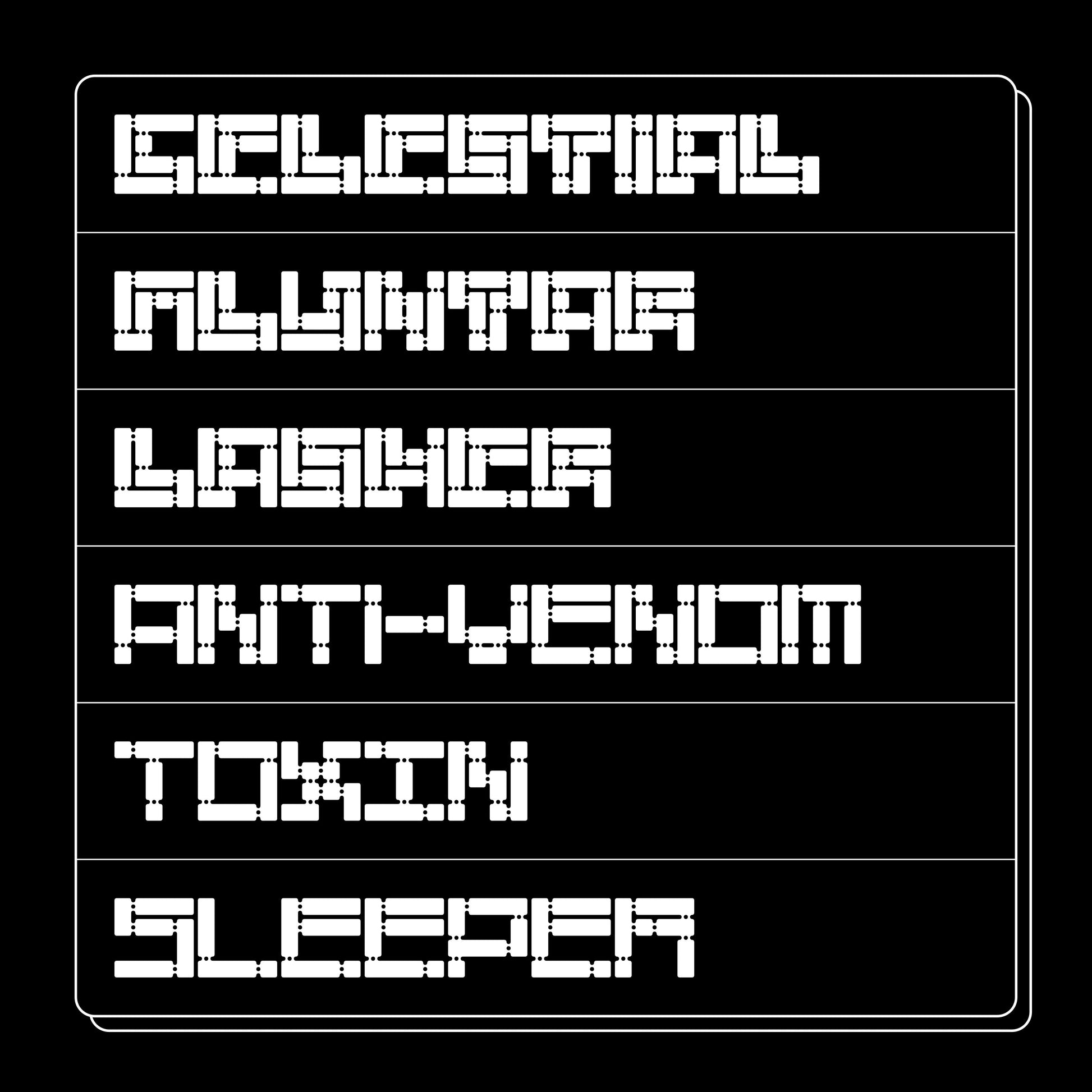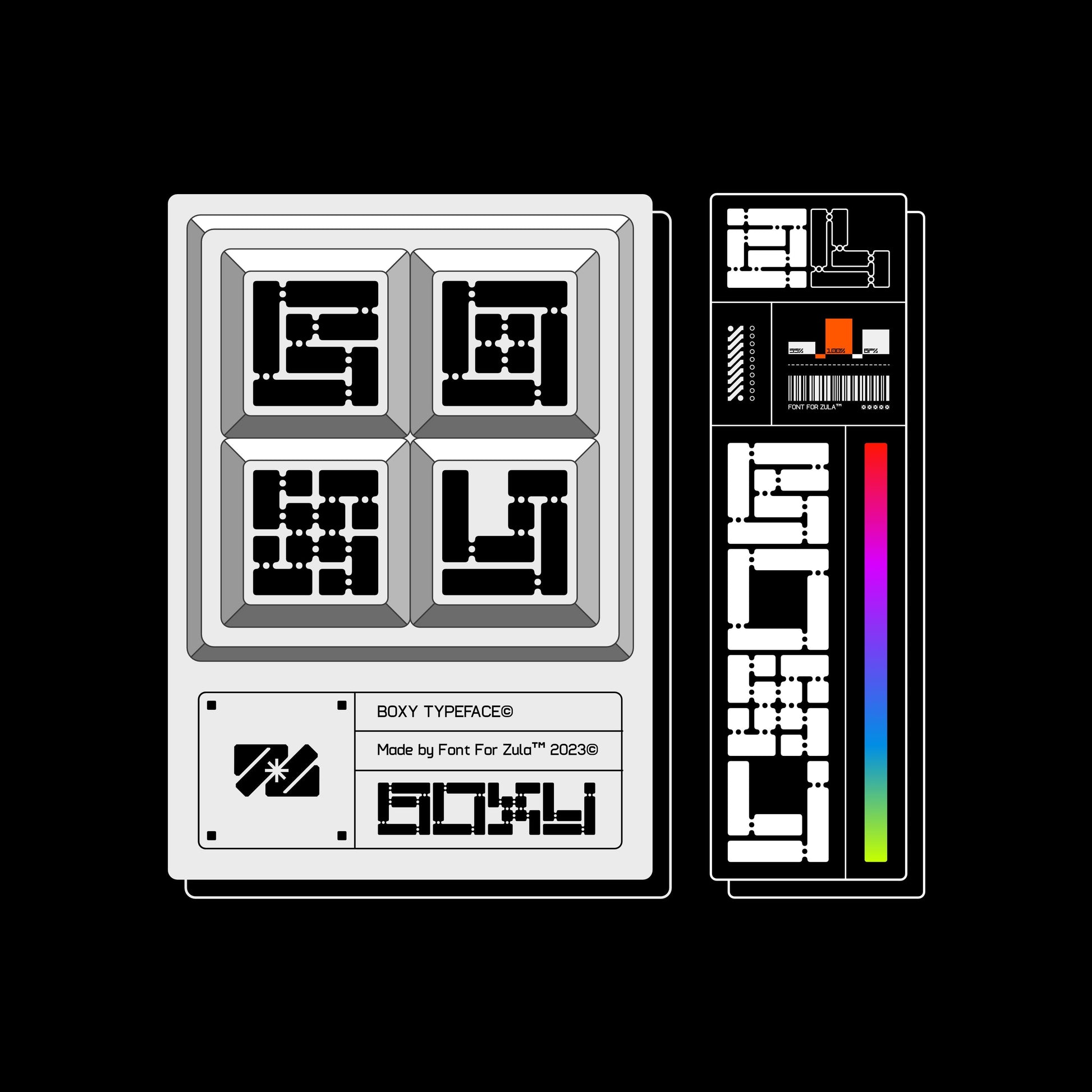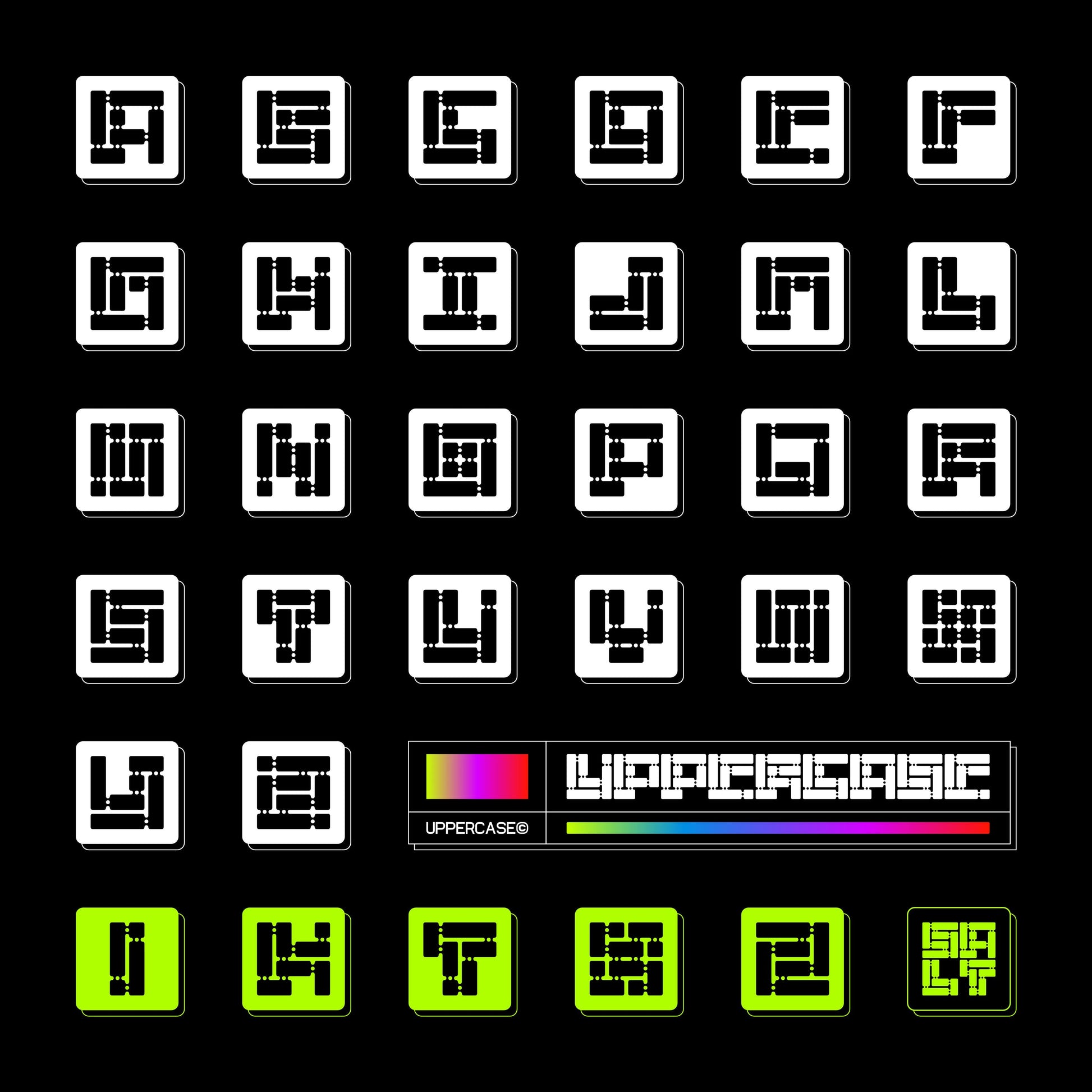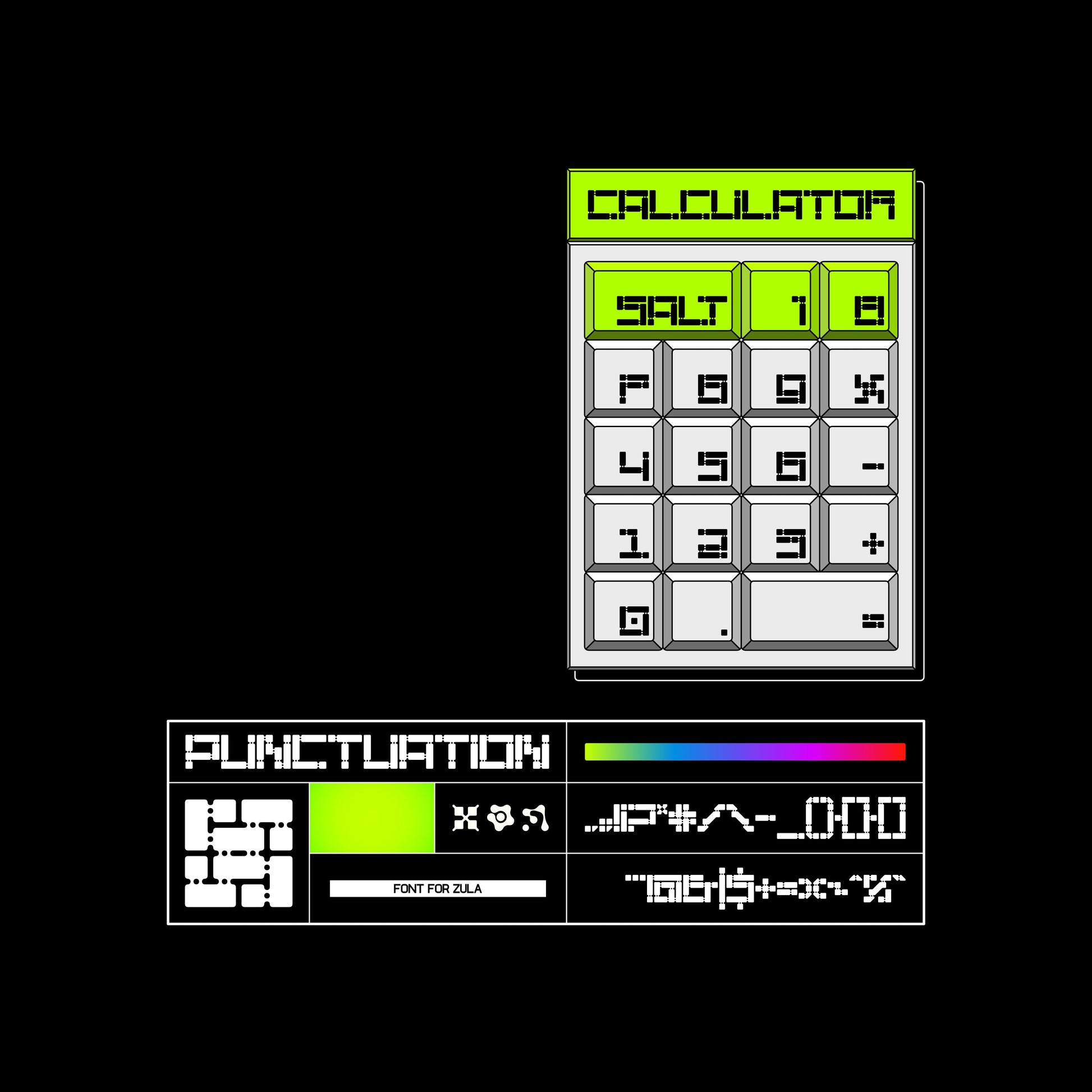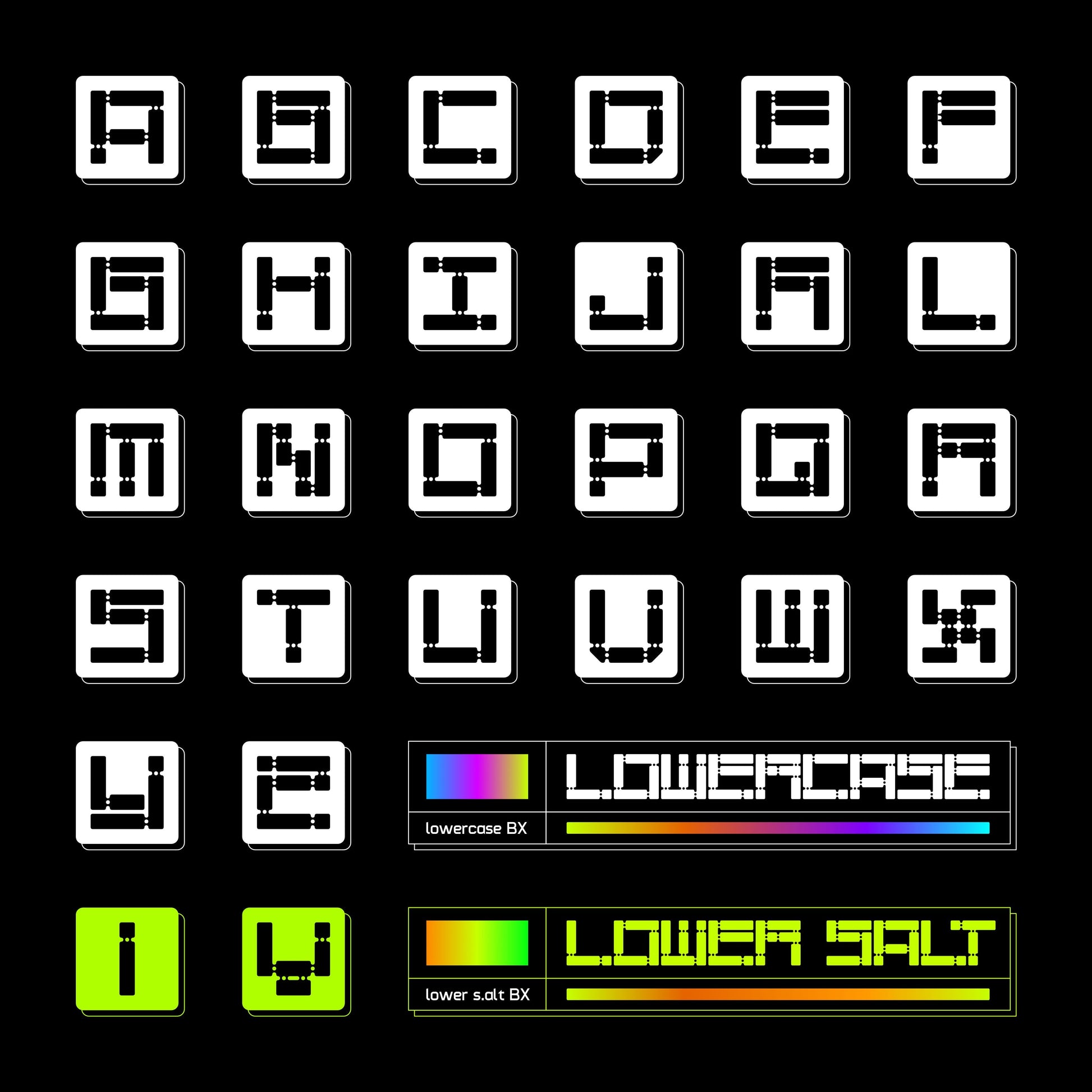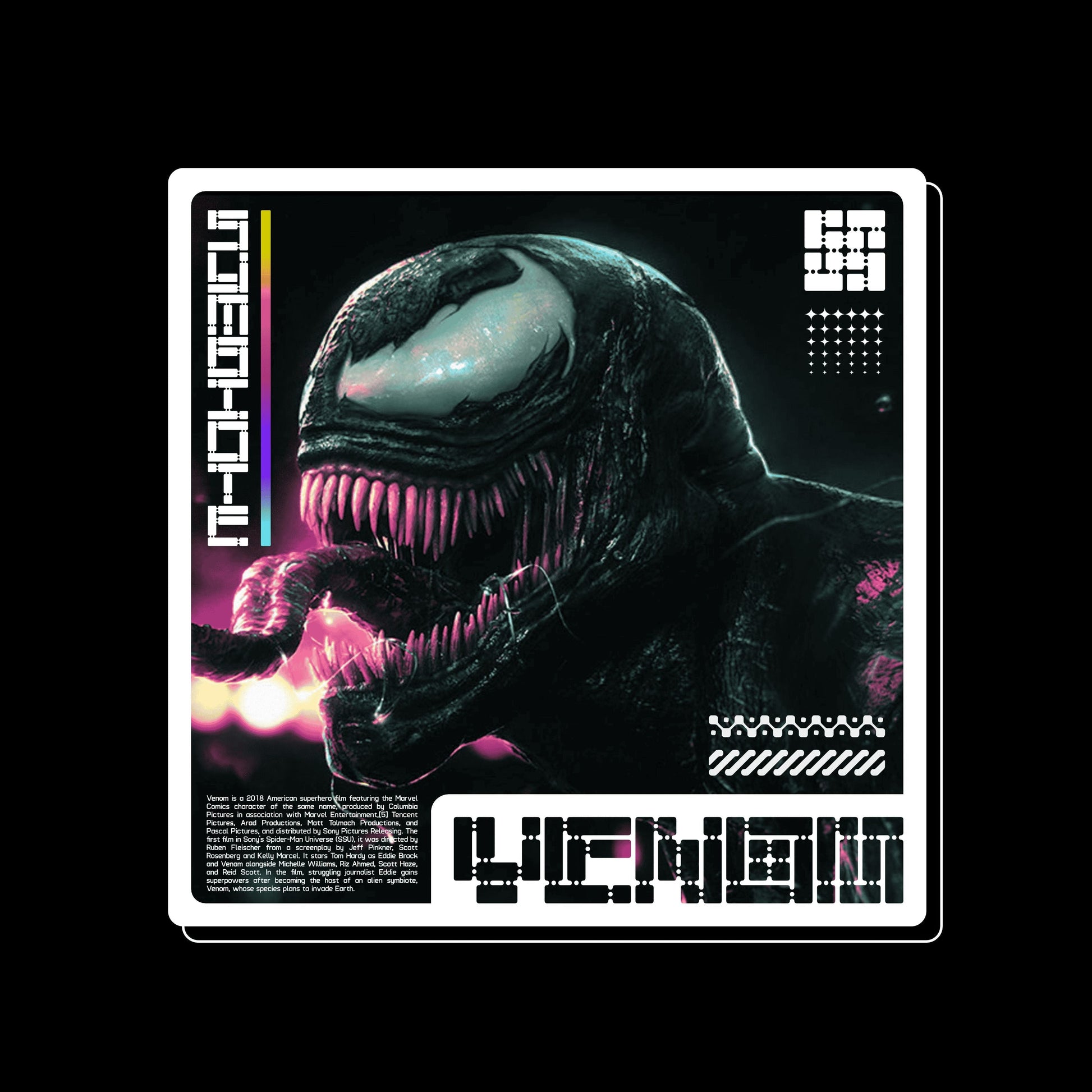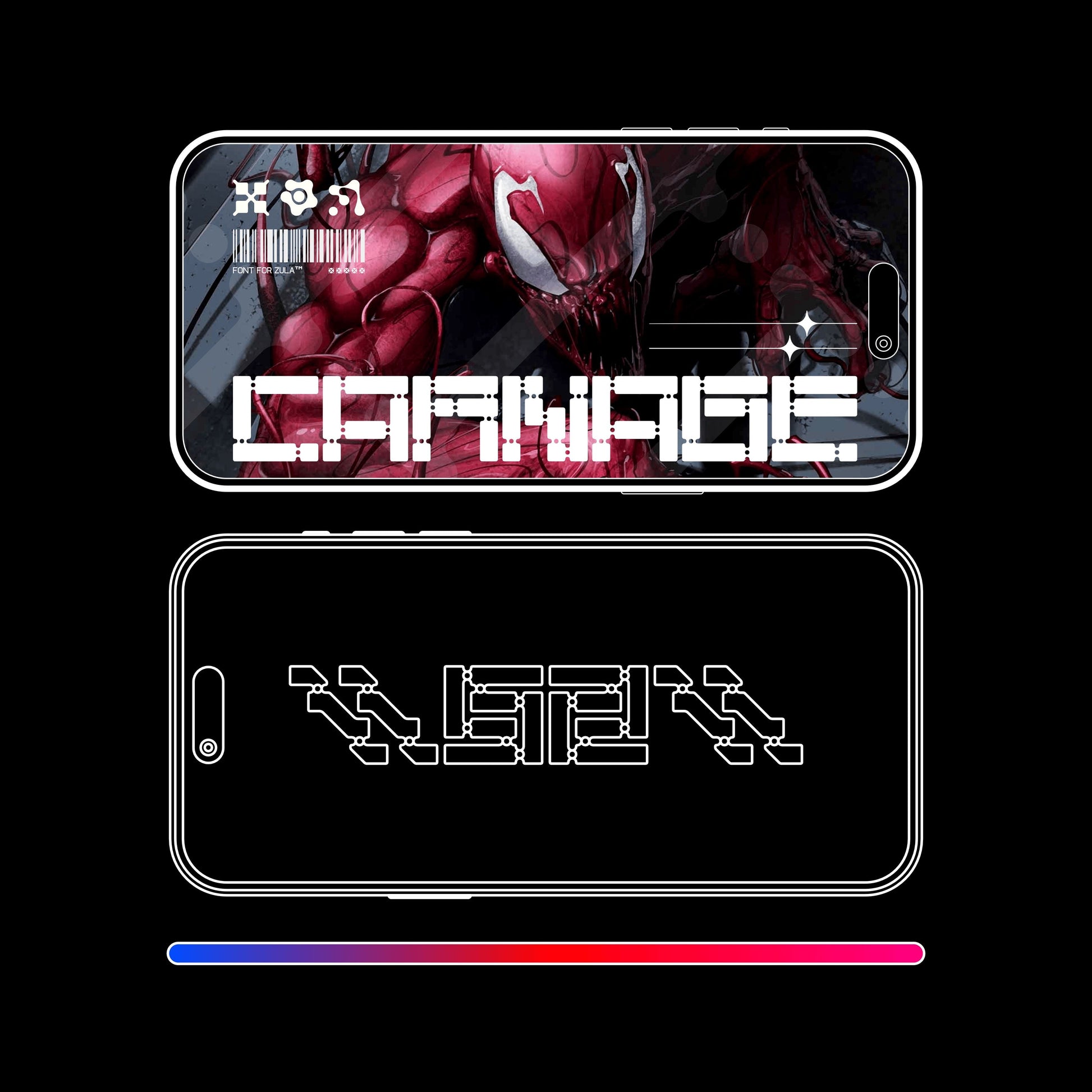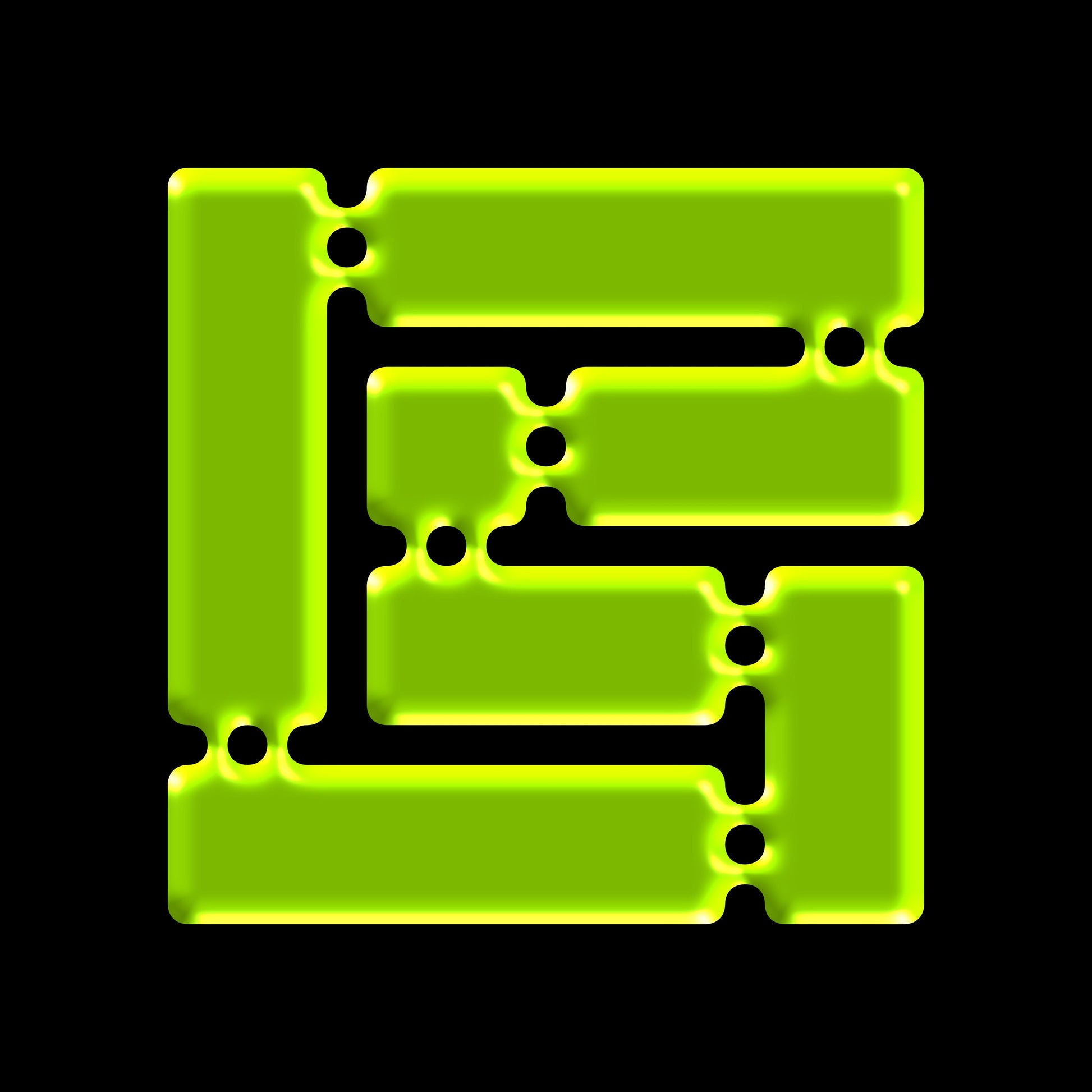
Boxy is a typeface that has a square shape as its name suggests, with unique accent joints in its design. Suitable for projects that require unique, monospaced typefaces.